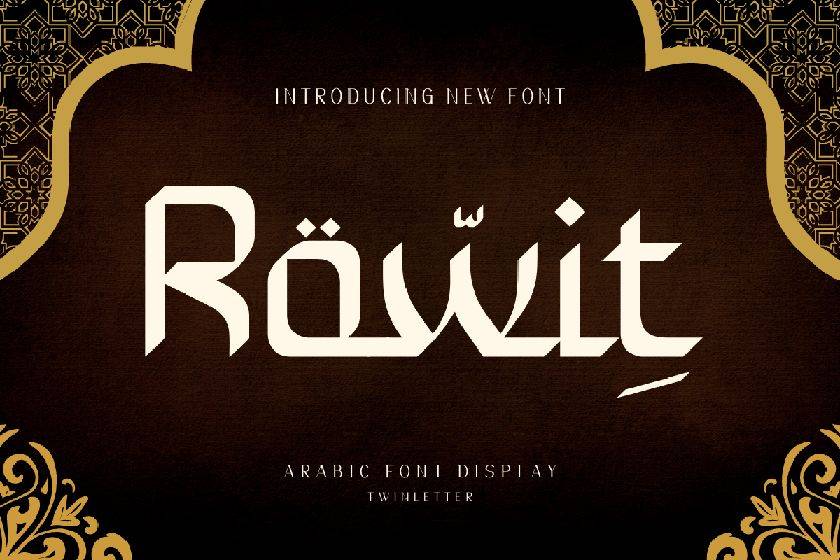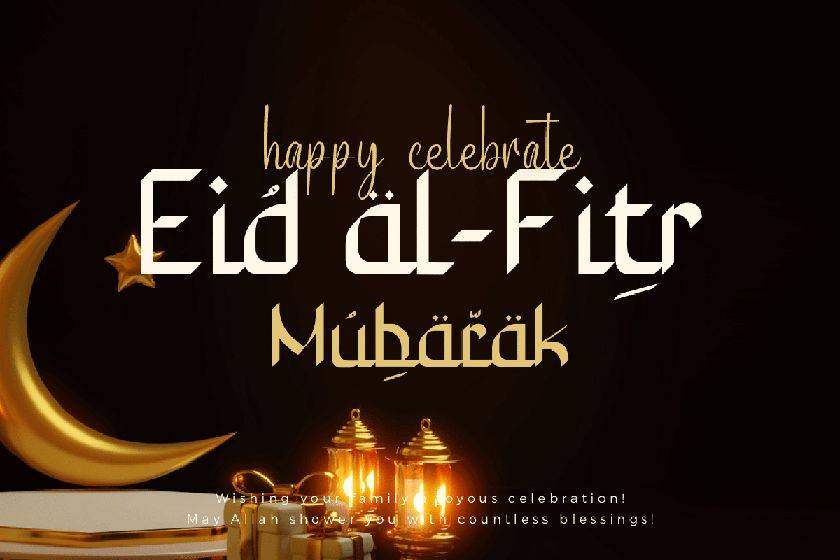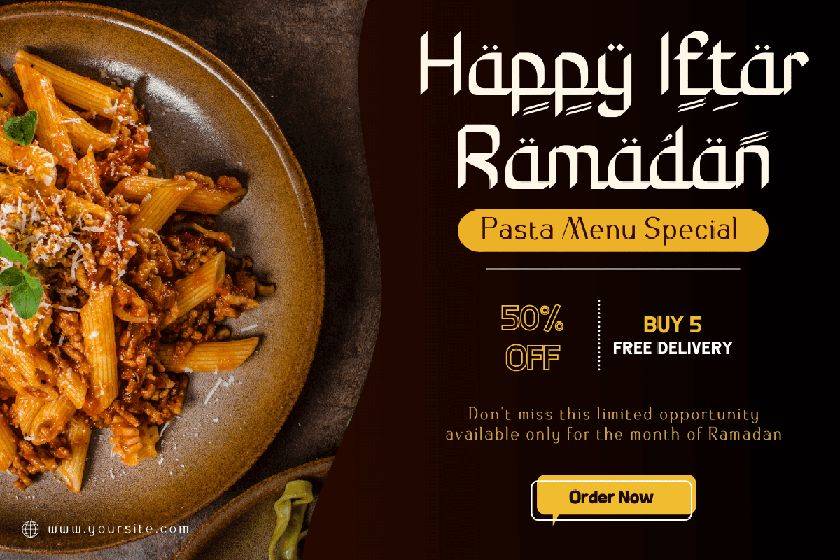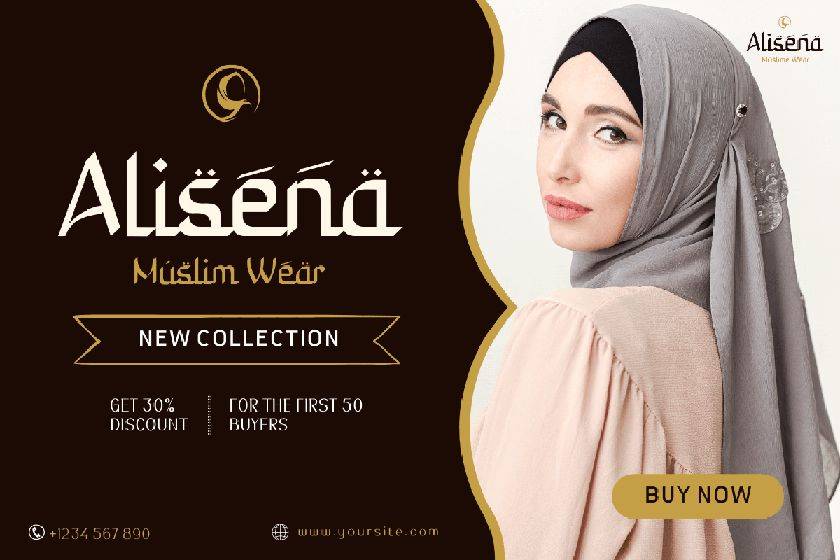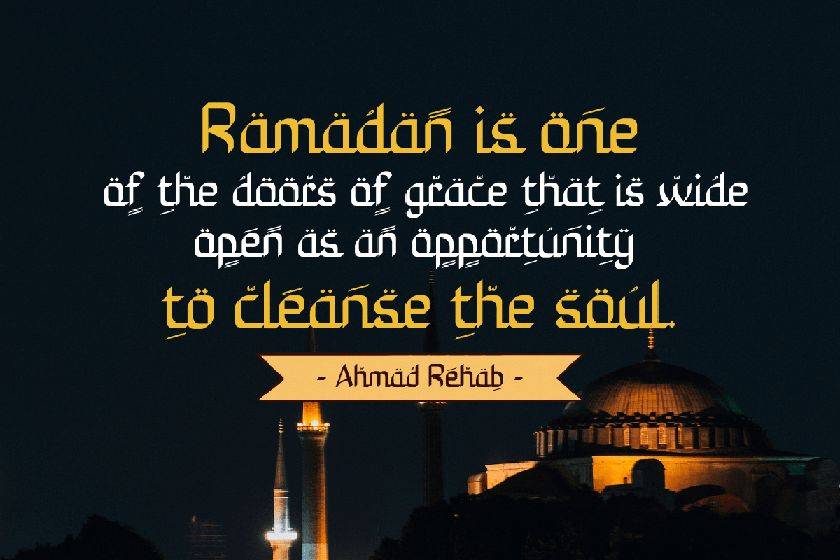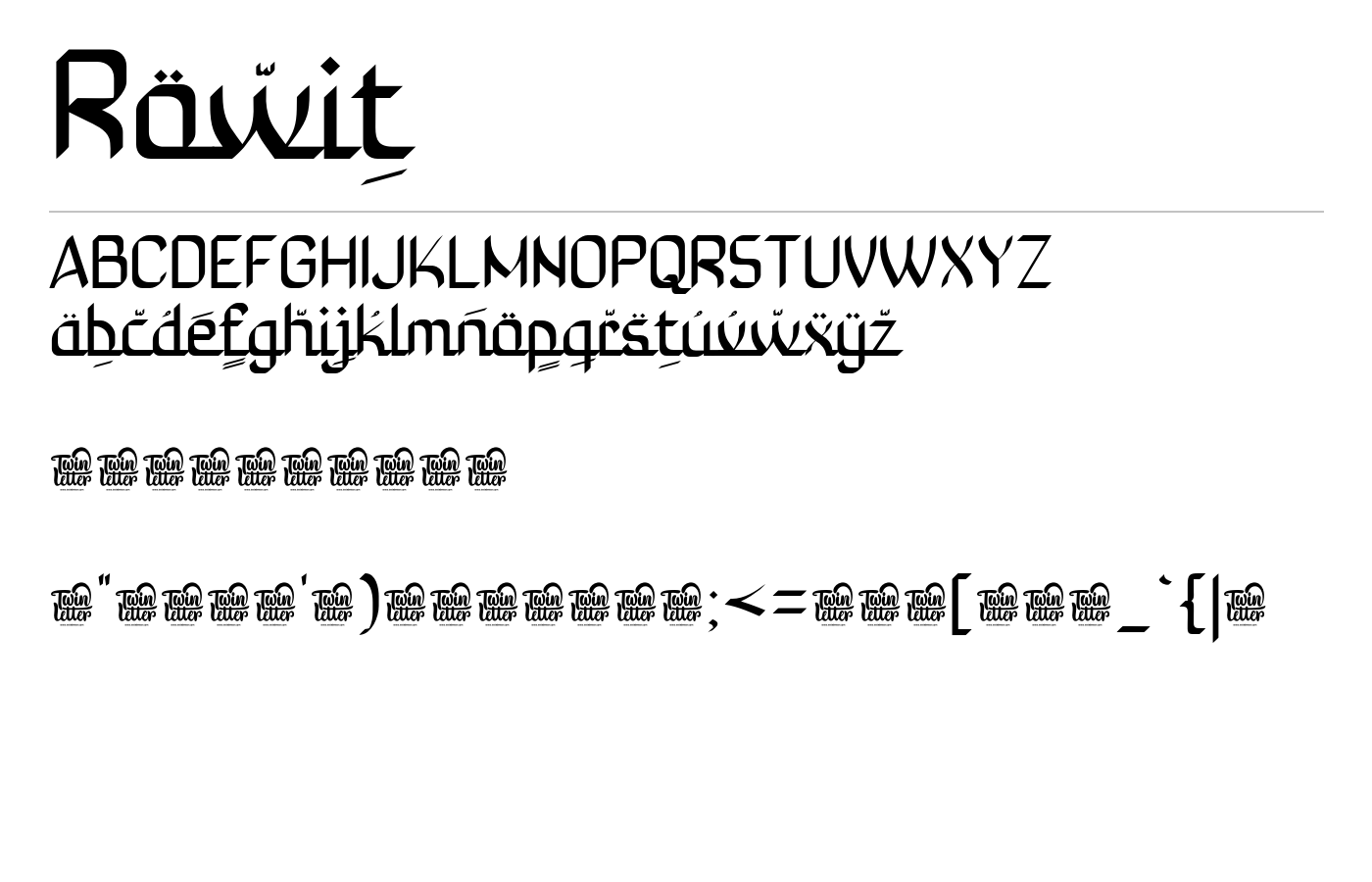
Rowit is a distinctive sans serif font with a modern, geometric style featuring sharp angles and unique stroke terminals that give it a slightly futuristic and edgy feel. It offers a compact, tall x-height with medium contrast, making it eye-catching for headlines, logos, and branding aiming for a bold, modern, and slightly unconventional look. This font works well for creative projects and tech-focused designs where a strong, individual personality is desired.
Rowit Font
About Rowit Font